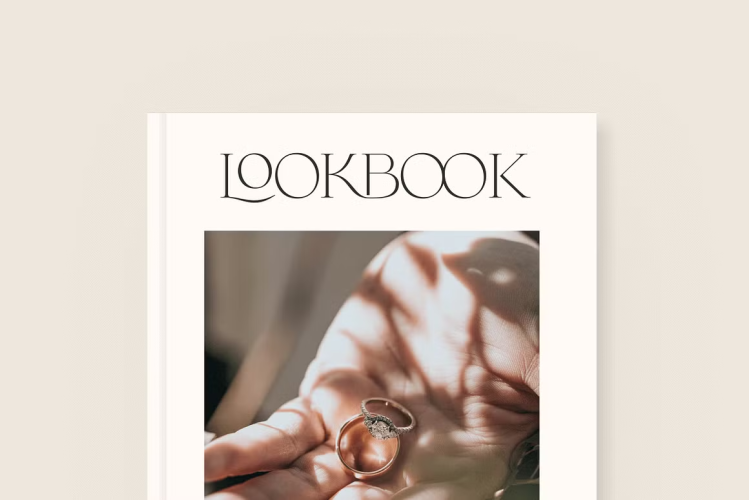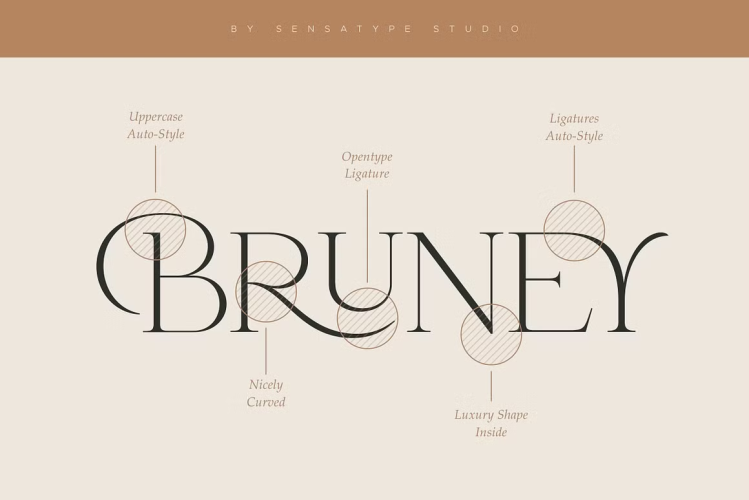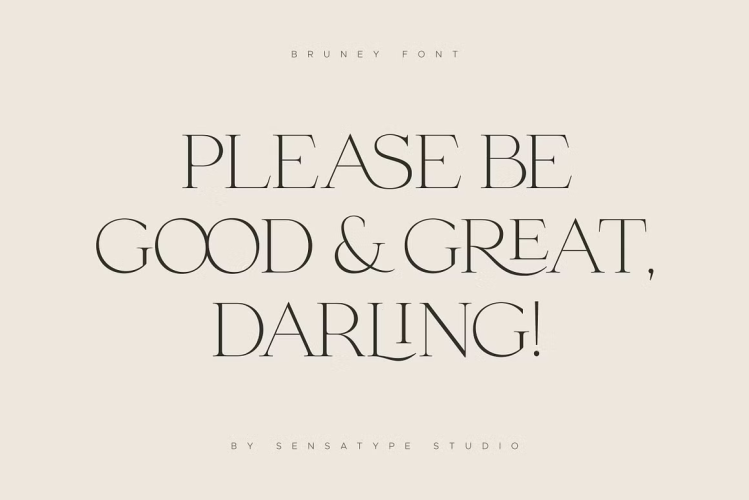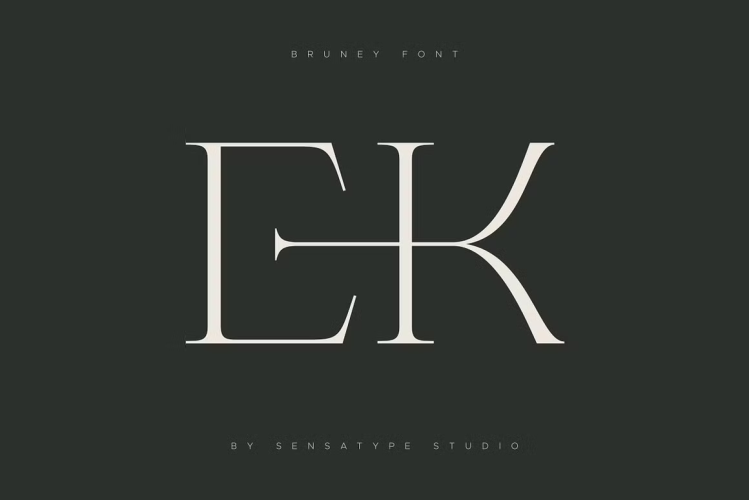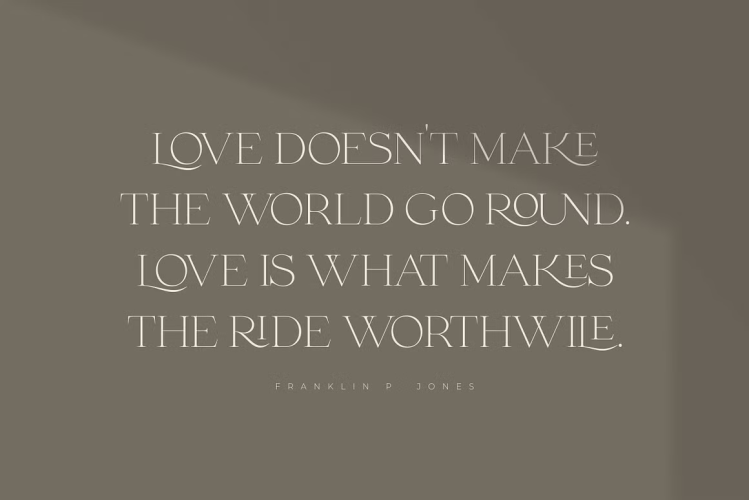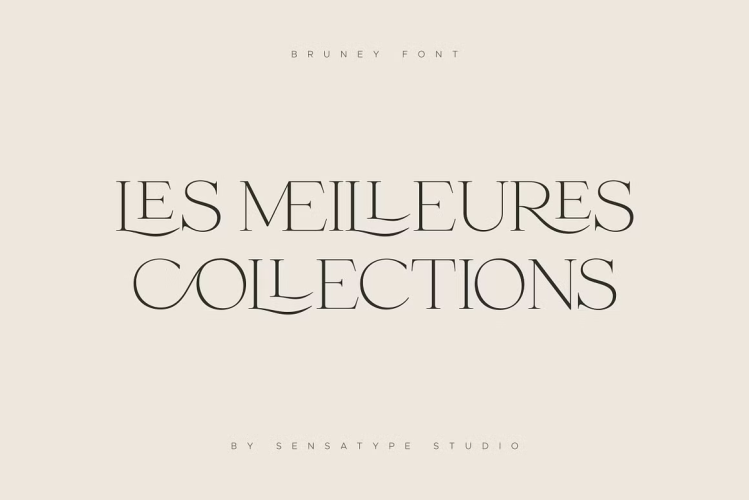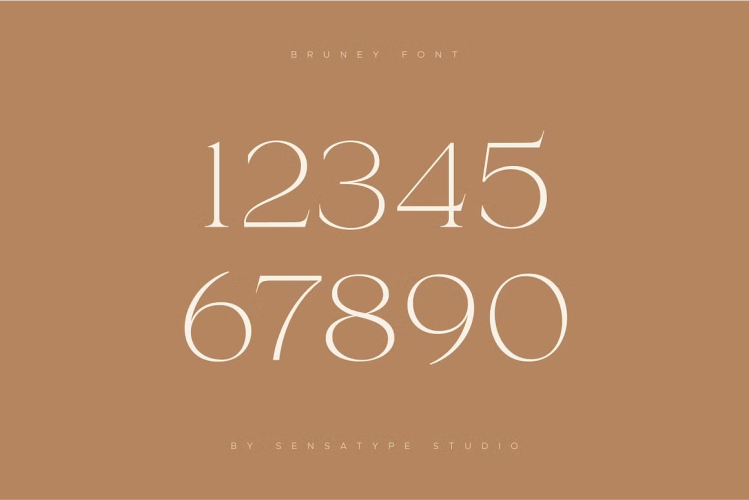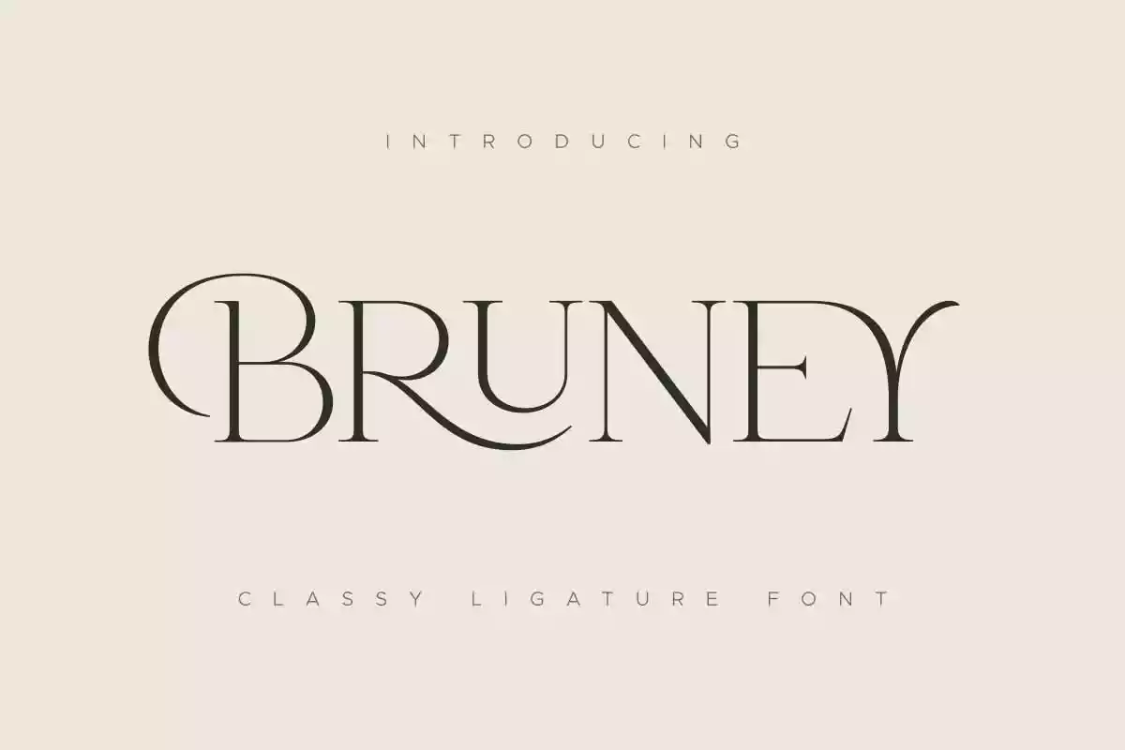
Bruney Font
Bruney is a classy, unique serif font perfect for brand and logo design. As graphic designers, our clients frequently ask us to design logos that are unique in style yet…
Bruney is a classy, unique serif font perfect for brand and logo design. As graphic designers, our clients frequently ask us to design logos that are unique in style yet elegant in shape. To fulfil this requirement, we brainstormed and created the Bruney font. With this font, you can create classy, sleek, and unique logos perfect for branding.
Bruney Font gives long-form text a classic, trustworthy rhythm — ideal for magazine spreads, annual reports and book interiors.
Pair Bruney Font with generous letter-spacing for wordmarks in fashion, hospitality, wine and jewellery branding.
Use Bruney Font for slide titles in Keynote, PowerPoint or Google Slides to add authority without looking dated.